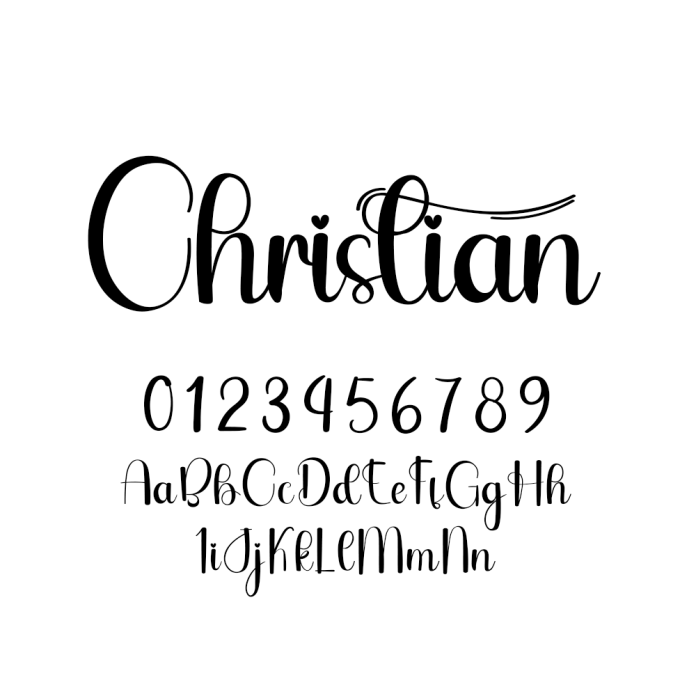
Christian Font is a delicate and elegant handwritten font. Its distinct and well balanced letters make this font a masterpiece. Fall in love with its incredibly versatile style and use it to create spectacular designs!